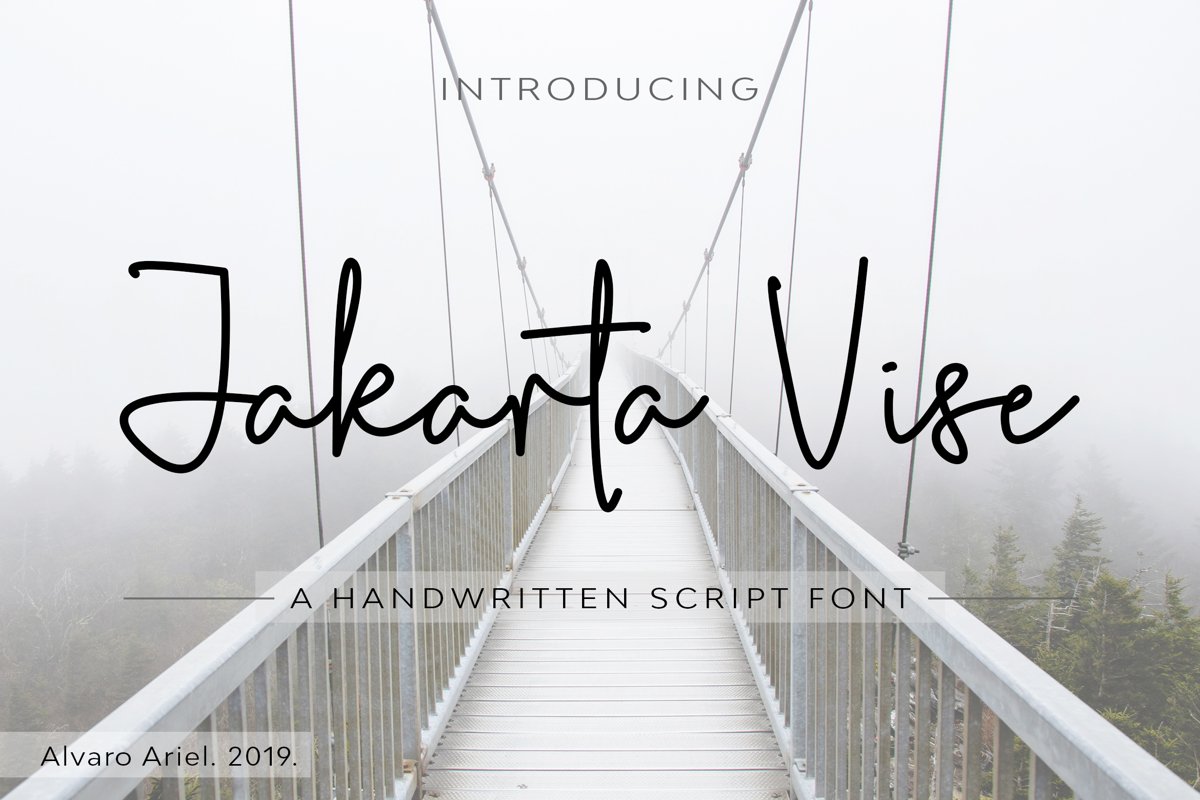
Jakarta Vise | Handwritten Script Font
Jakarta Vise
Introducing the Jakarta Vise handwritten script font. A simple handwritten script font with a natural & stylish flow.
This font contains uppercase, lowercase, numbers, symbols, including multilingual support and ligature.
Jakarta Vise is perfect for logos, product designs, photography, watermark, and any design that require a handwritten style font.